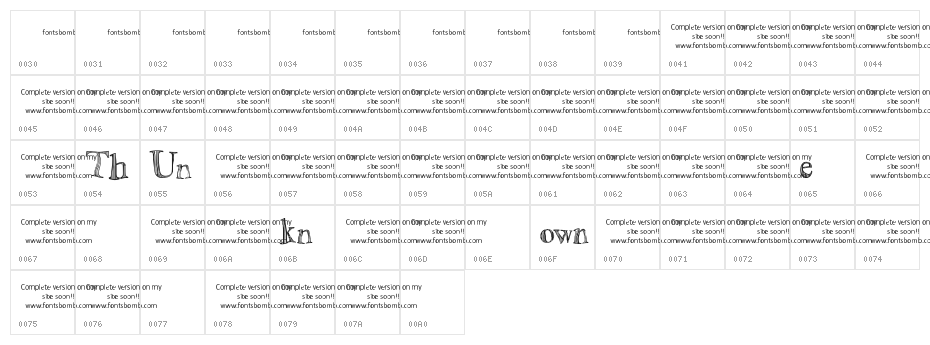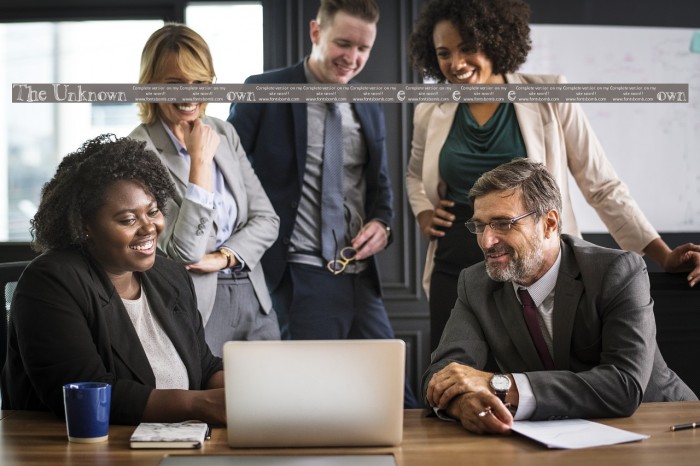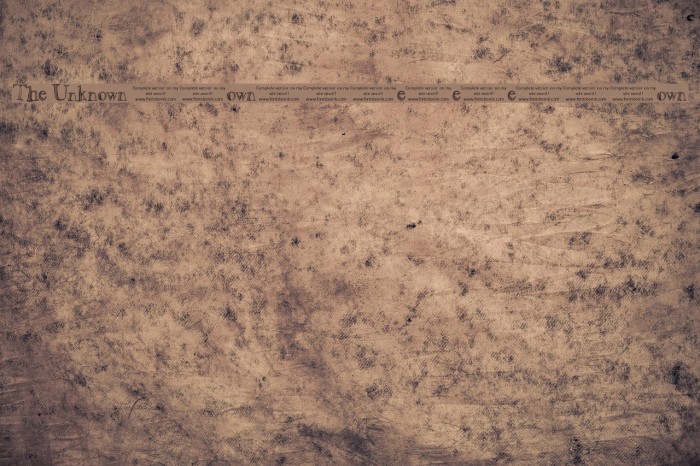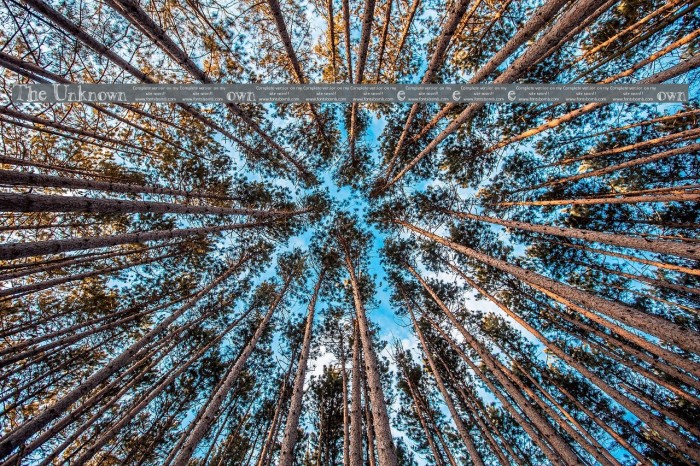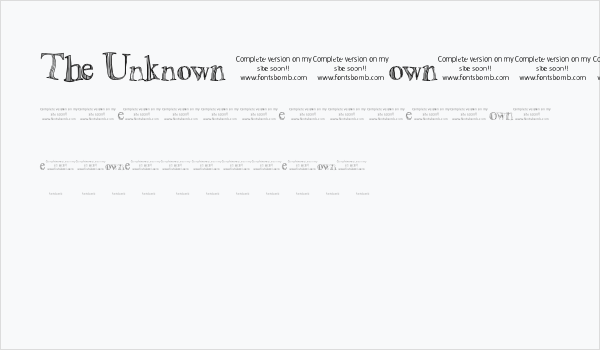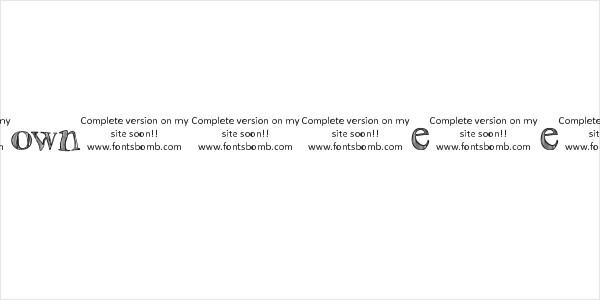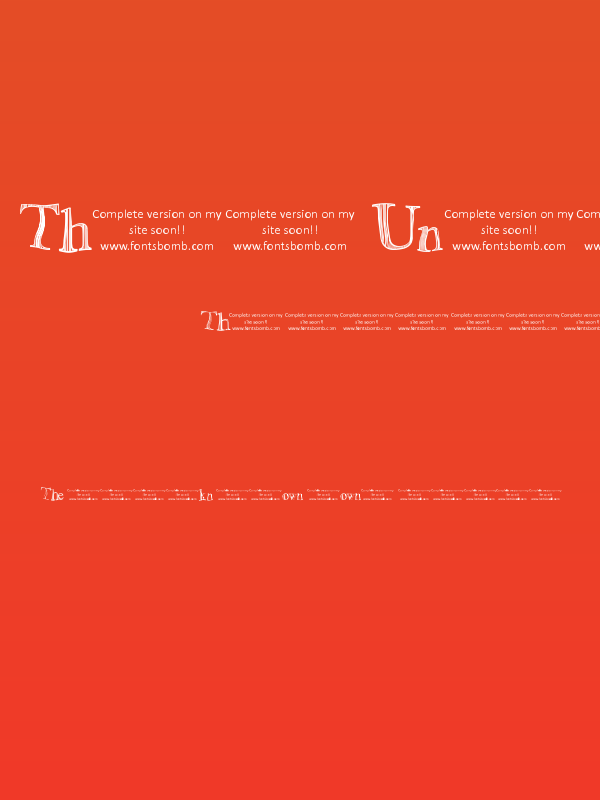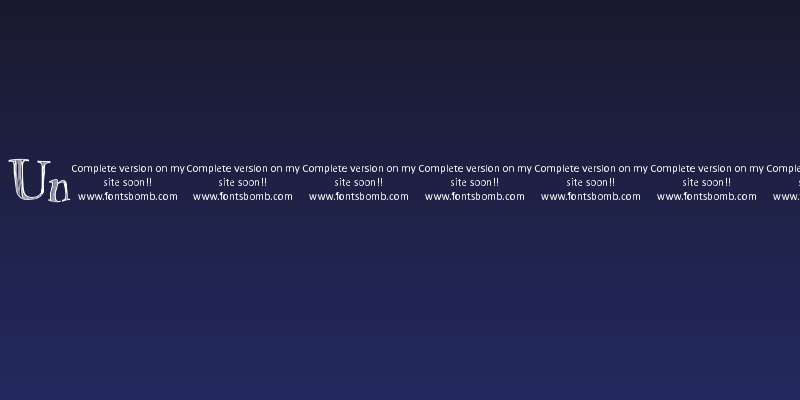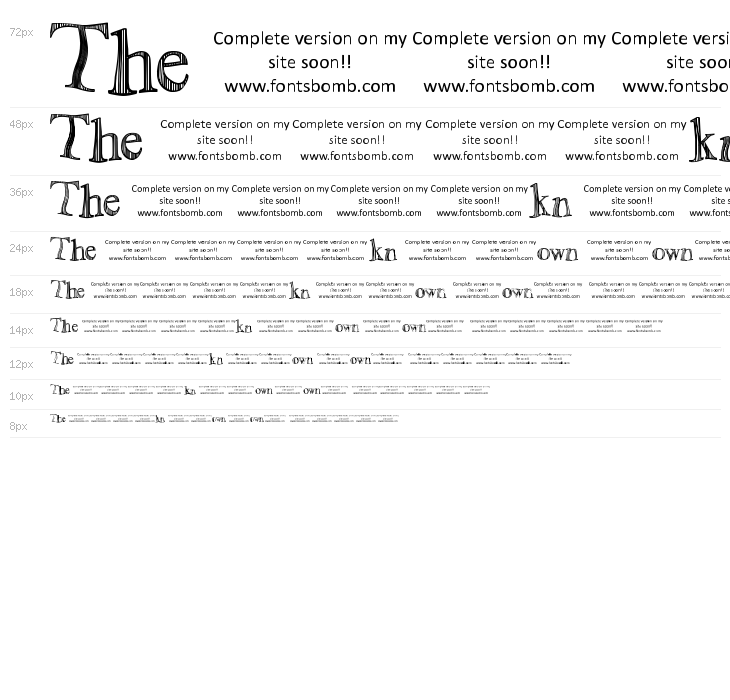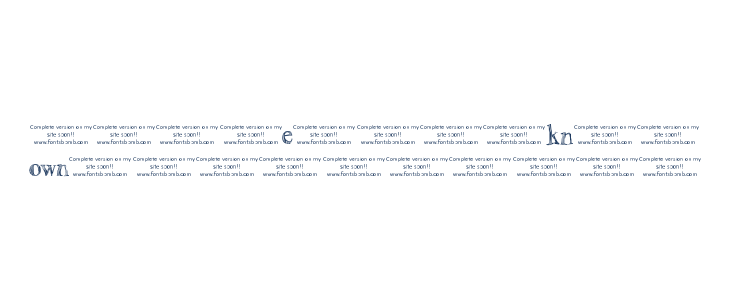
The Unknown [uncomplete_version] Font
The Unknown [uncomplete_version] Description
This font features a highly decorative and artistic style, characterized by intricate details and unique letterforms. Each character is embellished with ornate elements, giving it a whimsical and fantastical appearance. The font's design is reminiscent of vintage or fairy-tale aesthetics, making it stand out with its elaborate and playful nature. The characters are not uniform, with varying stroke weights and decorative flourishes that add to its charm. This font is ideal for creative projects where a touch of fantasy or artistic flair is desired.
| Proposed Projects | Ideal for fantasy-themed book covers, artistic posters, invitations, and branding that requires a unique and decorative touch. |